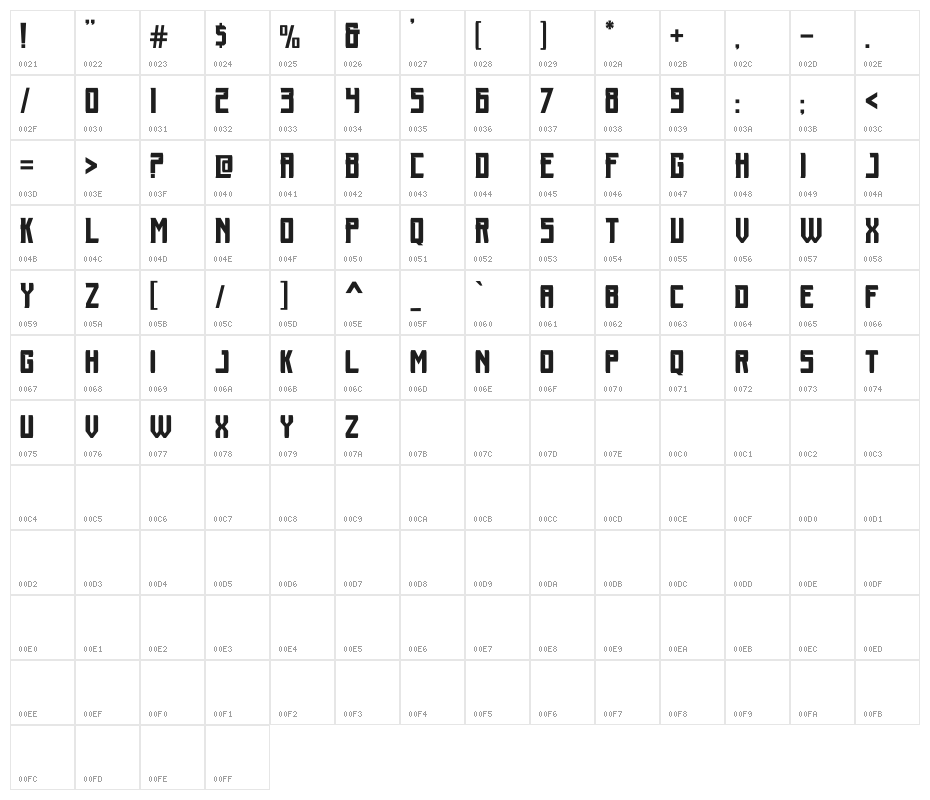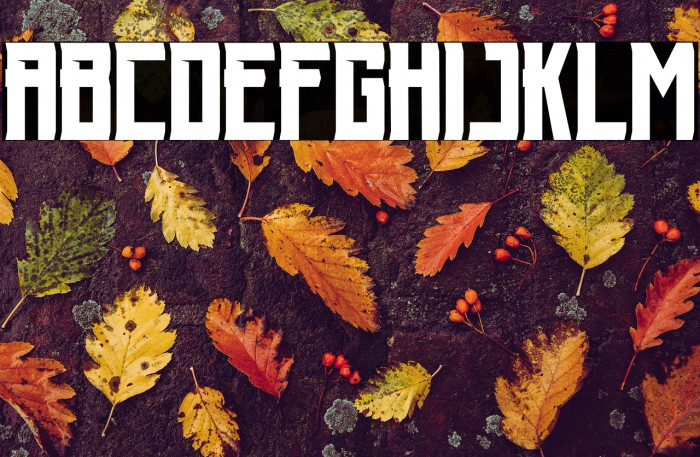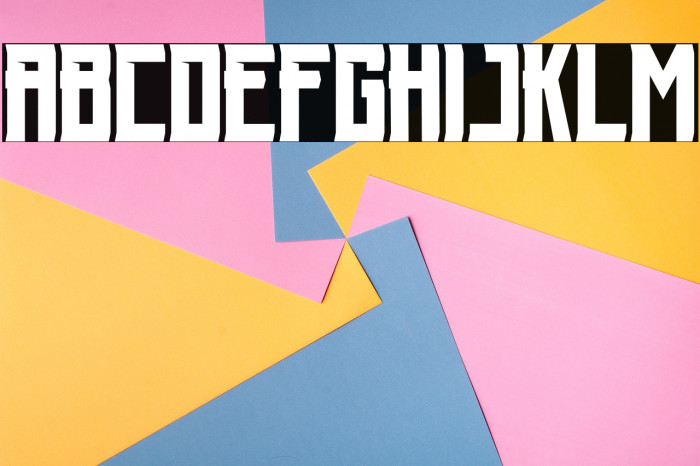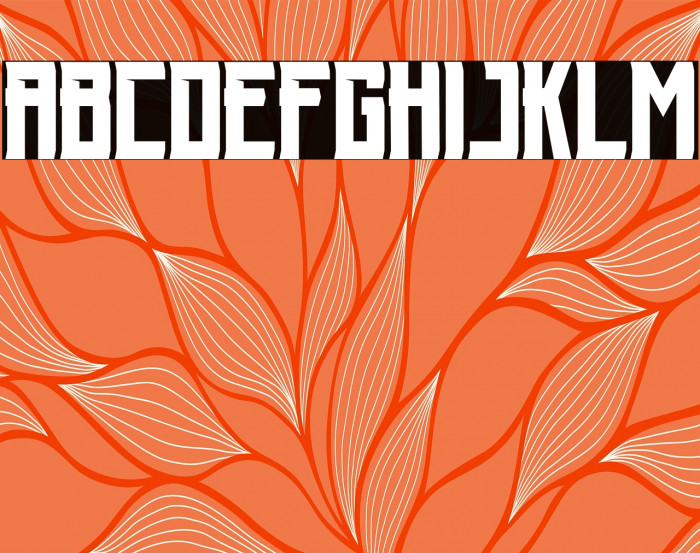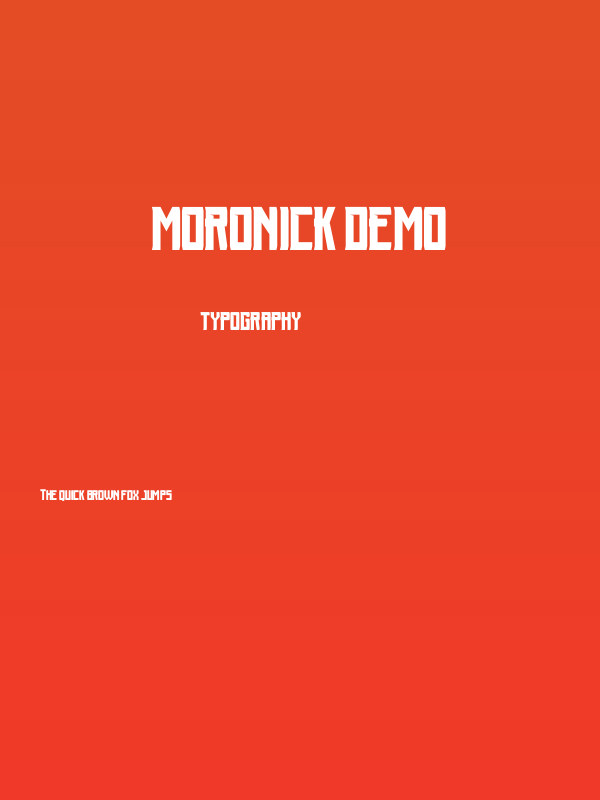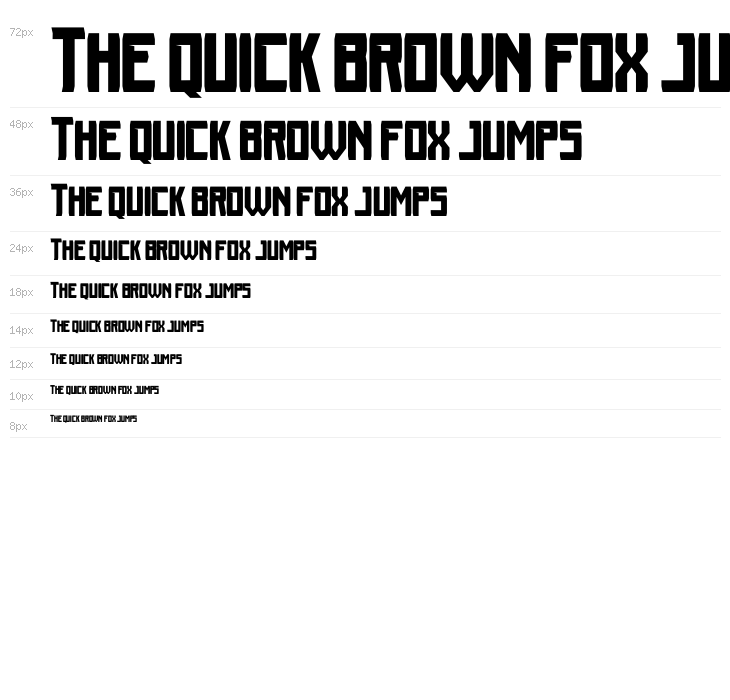
moronick demo Font
moronick demo Description
This font features a bold and angular design, characterized by its sharp edges and geometric shapes. The uppercase letters are particularly striking, with a blocky appearance that conveys strength and modernity. The numbers and special characters follow the same design principles, ensuring consistency throughout. The font's unique style makes it stand out, with each character having a distinct presence. Its boldness and angularity suggest a futuristic or industrial theme, making it suitable for projects that require a strong visual impact.
| Proposed Projects | Ideal for branding, posters, video game graphics, and any project needing a strong, modern aesthetic. |